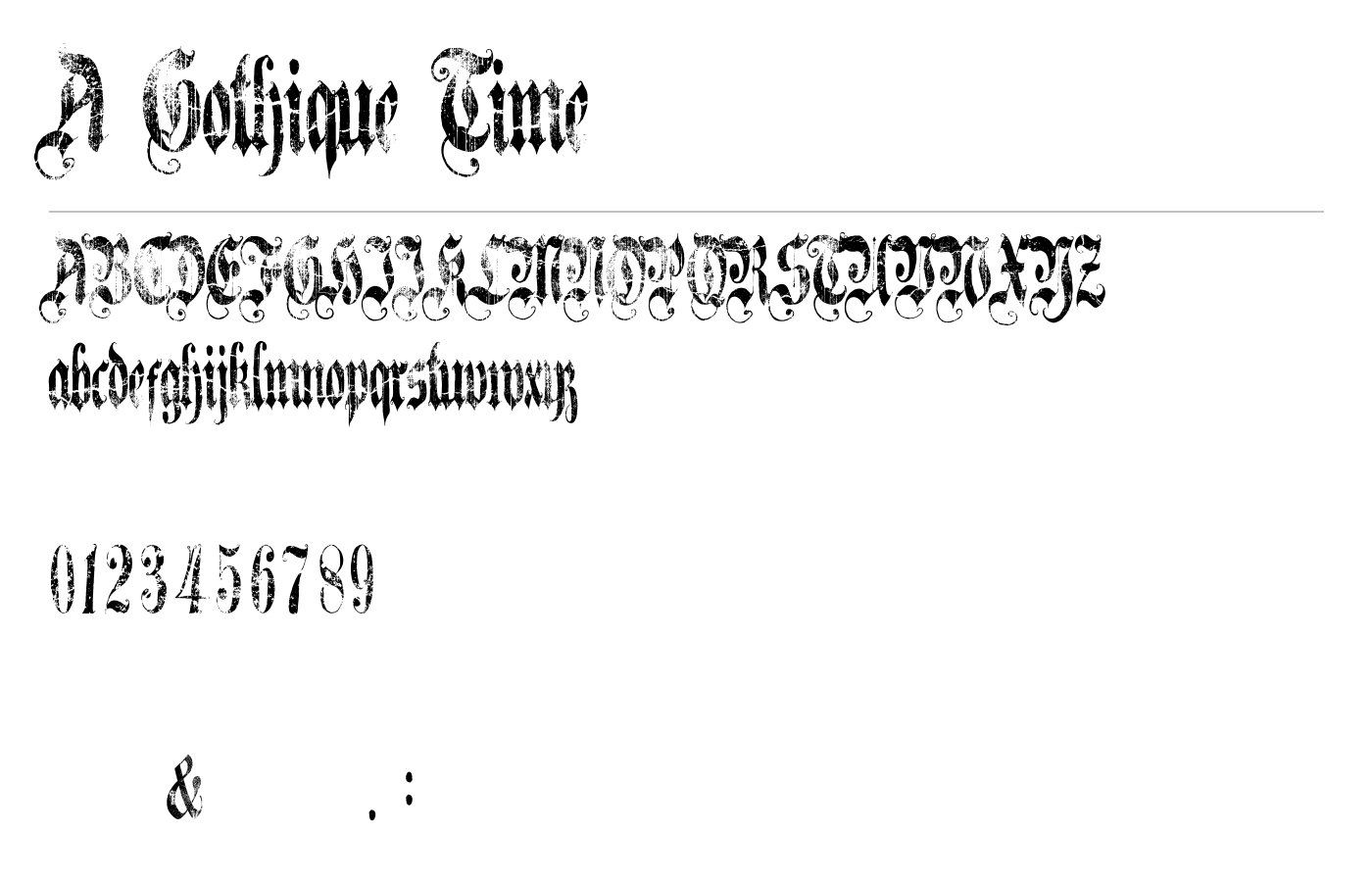
A Gothique Time is a bold, decorative blackletter font with a distressed texture that gives it a vintage, gothic feel. Its intricate, sharp serifs and high contrast strokes make it ideal for dramatic headlines, logos, and branding that seek to convey an old-world, mysterious, or medieval atmosphere. This font works best in creative projects where a strong and expressive statement is desired, especially in fashion, entertainment, or themed event designs.
A Gothique Time Font
About A Gothique Time Font
| Font family | A Gothique Time Font |
| Designer | Fie Clarke 'Bonez Designz' |